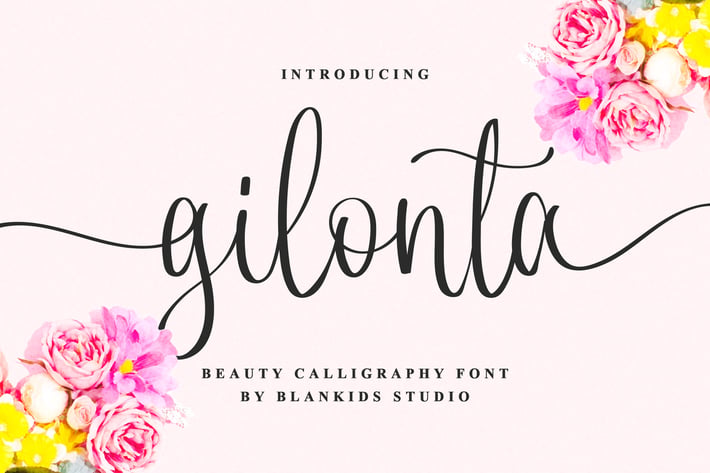
Gilonta - Beauty Calligraphy Font
Introducing of our new product the name is Gilonta beauty calligraphy font. inspired by modern calligraphy and girly calligraphy style, Gilonta is good for logotype, wedding invitation design, badge, headline, signature, packaging and any more.